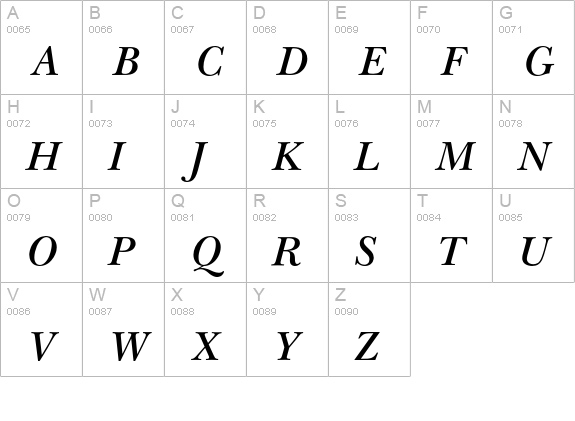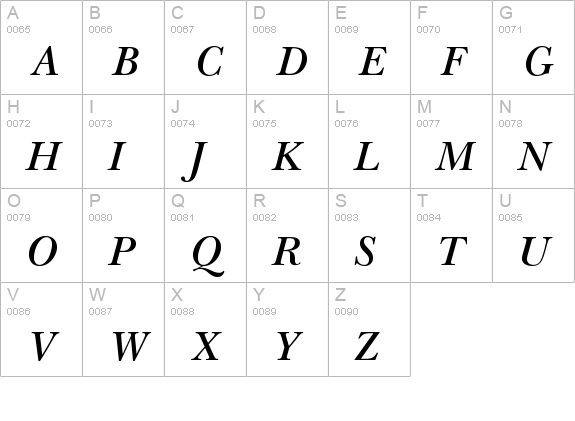
New Baskerville* Semi Bold Italic Font Details
New Baskerville* Semi Bold Italic is a strong, high-contrast, italic variant in the New typeface family \xE2\x80\x94 well suited to headlines, attention-grabbing titles, and strong calls-to-action.
New Baskerville Semi Bold Italic is a sophisticated and elegant font that exudes a sense of refinement and luxury. Its sleek lines and subtle curves make it perfect for adding a touch of class to any design project. The semi bold weight adds a sense of strength and confidence, while the italic styling brings a touch of flair and sophistication. This font is ideal for use in editorial design, branding, invitations, and other projects where a touch of sophistication is desired. Whether you're designing a high-end magazine spread or creating an elegant wedding invitation, New Baskerville Semi Bold Italic is sure to impress. The best part? This beautiful font is available for free download at FontsMarket.com, making it accessible to designers of all levels. Don't miss out on the opportunity to add this stunning typeface to your font library today!